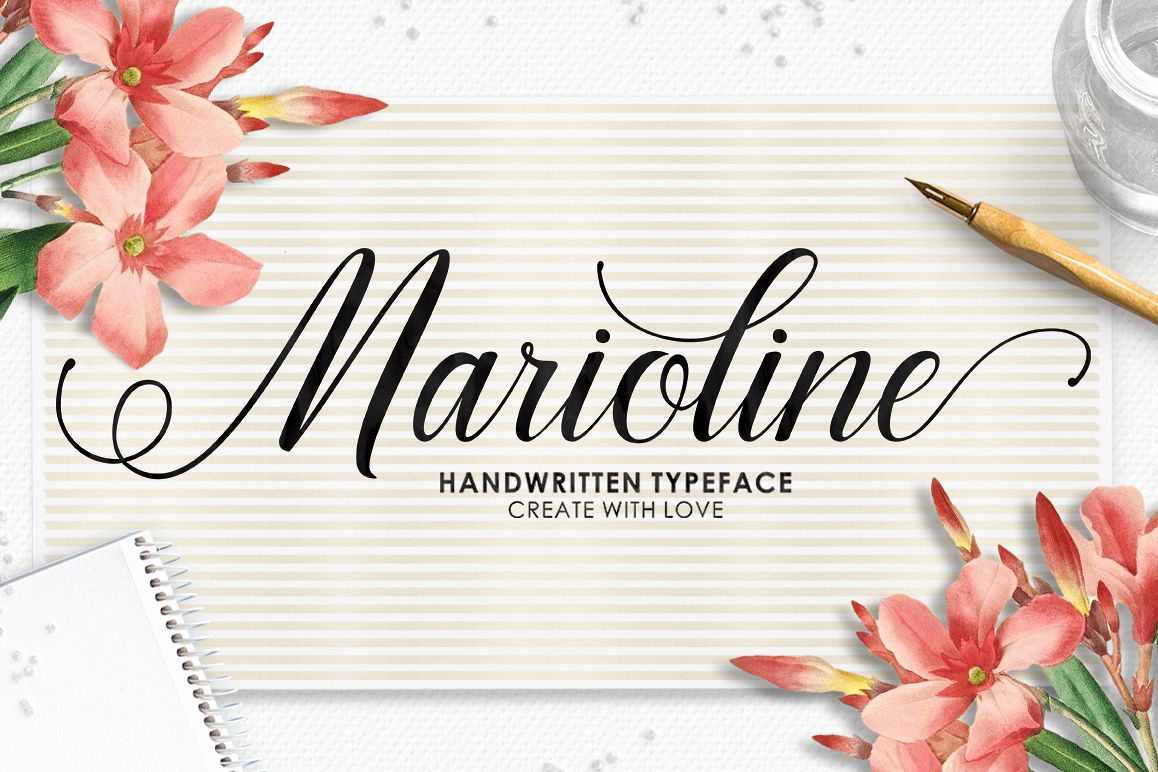
Marioline Script
Marioline
Marioline Bold
Marioline Script is a handwritten typeface with classic root. a beautiful formal script and elegant touch.
It works perfect in the world of weddings, logos, greeting cards, branding, print ads, quotes, signage, magazines etc.
Marioline features 500+ glyphs and 315 alternate characters. including initial and terminal letters, alternates, swashes,
ligatures and multiple language support.